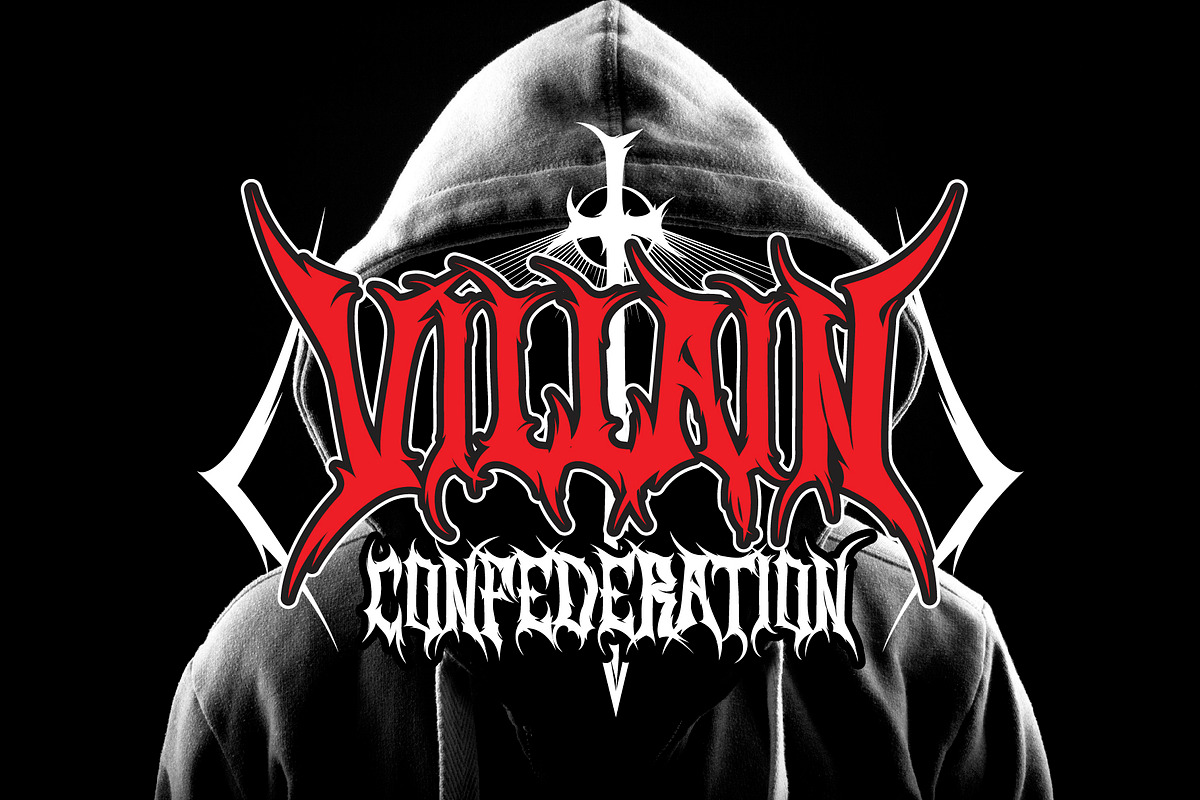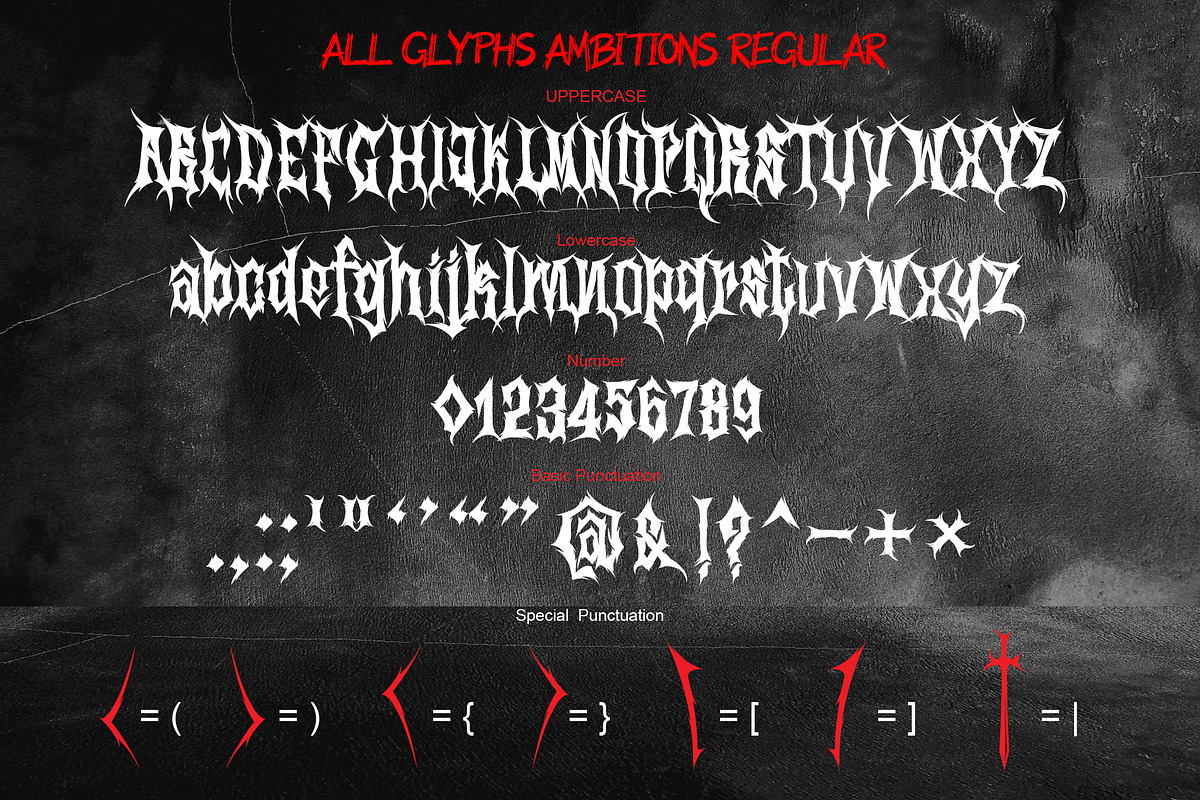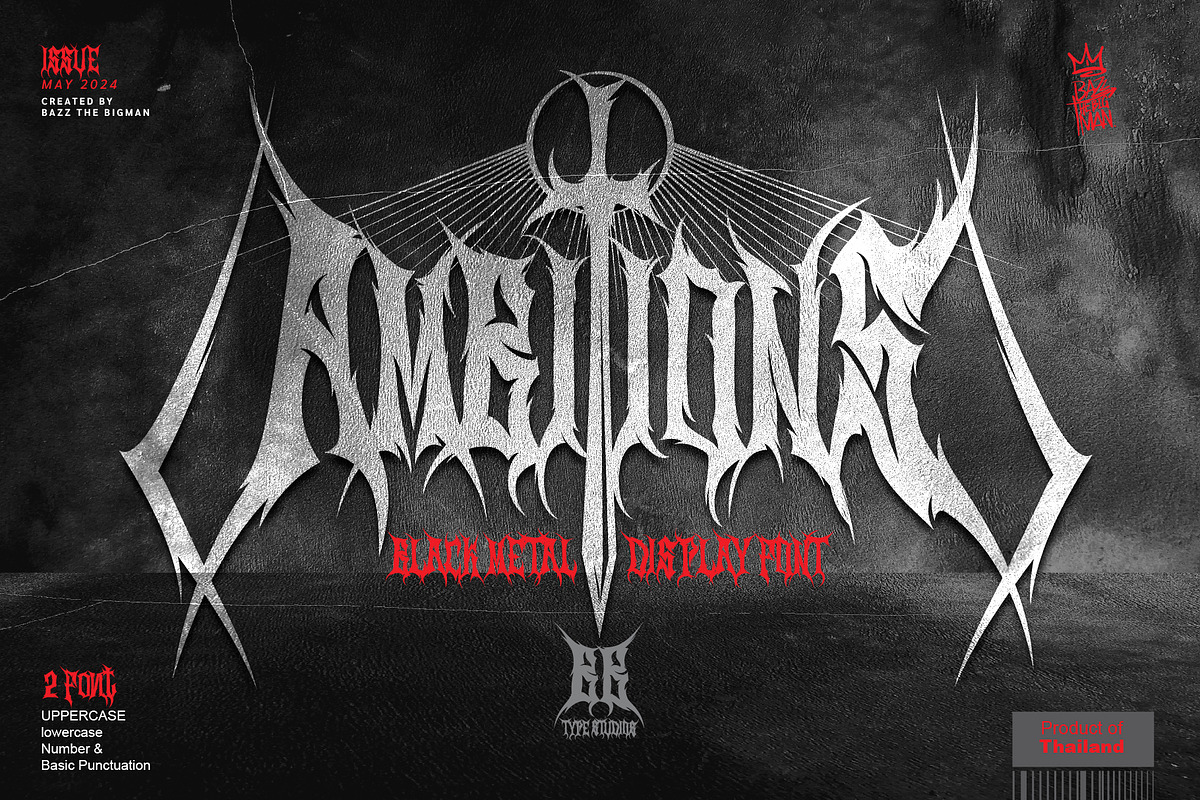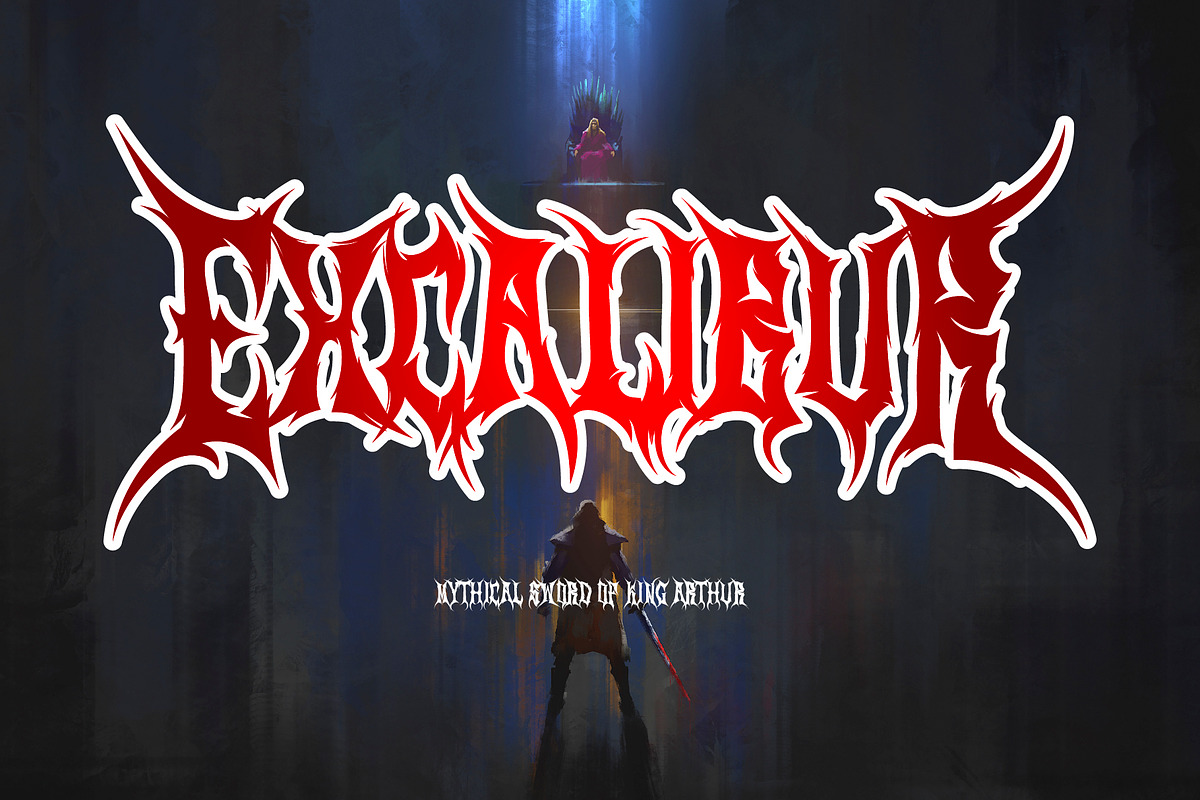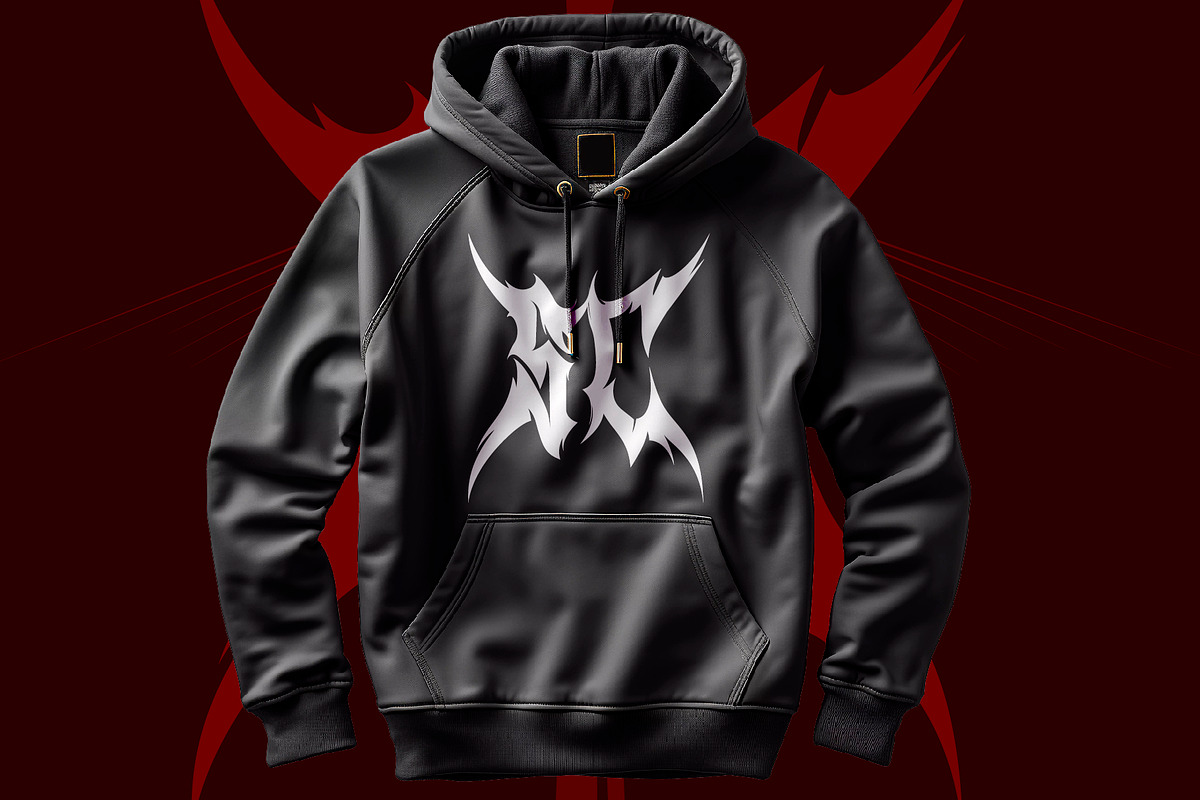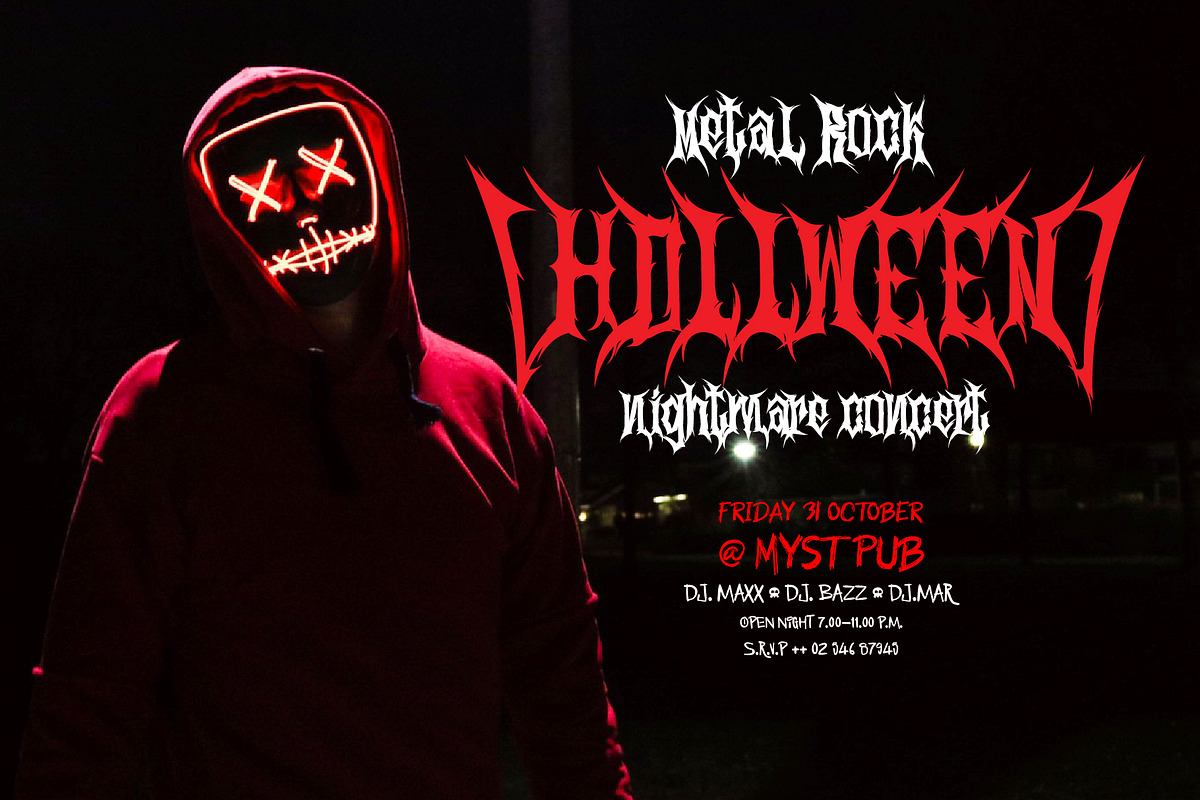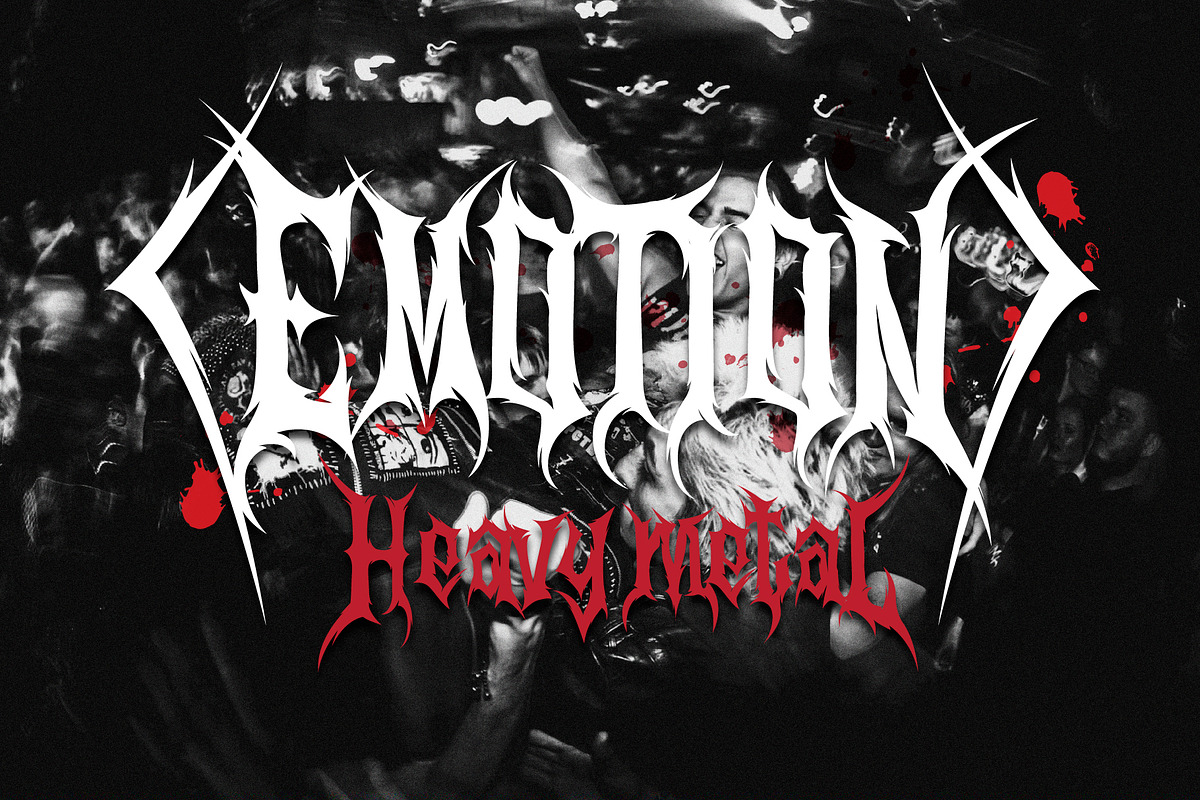
Ambitions
Elevate your rock music posters and T-shirt designs with Ambitions, the quintessential heavy metal font. Manifesting the boldness of the genre, Ambitions delivers a powerful punch that can transform logo designs reflecting your heavy metal style. Unleash your full creative potential and amplify your ideas to the maximum with Ambitions! Including Font File: OTF, TTF, and WOFF